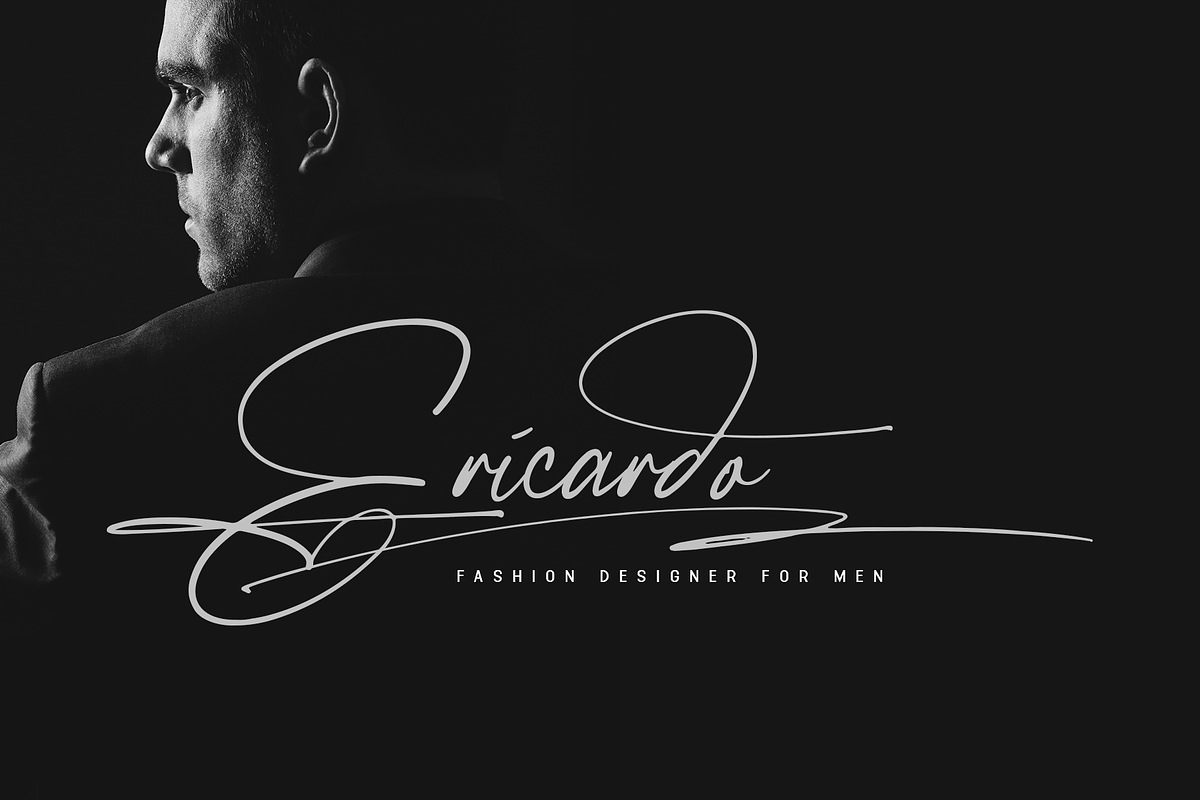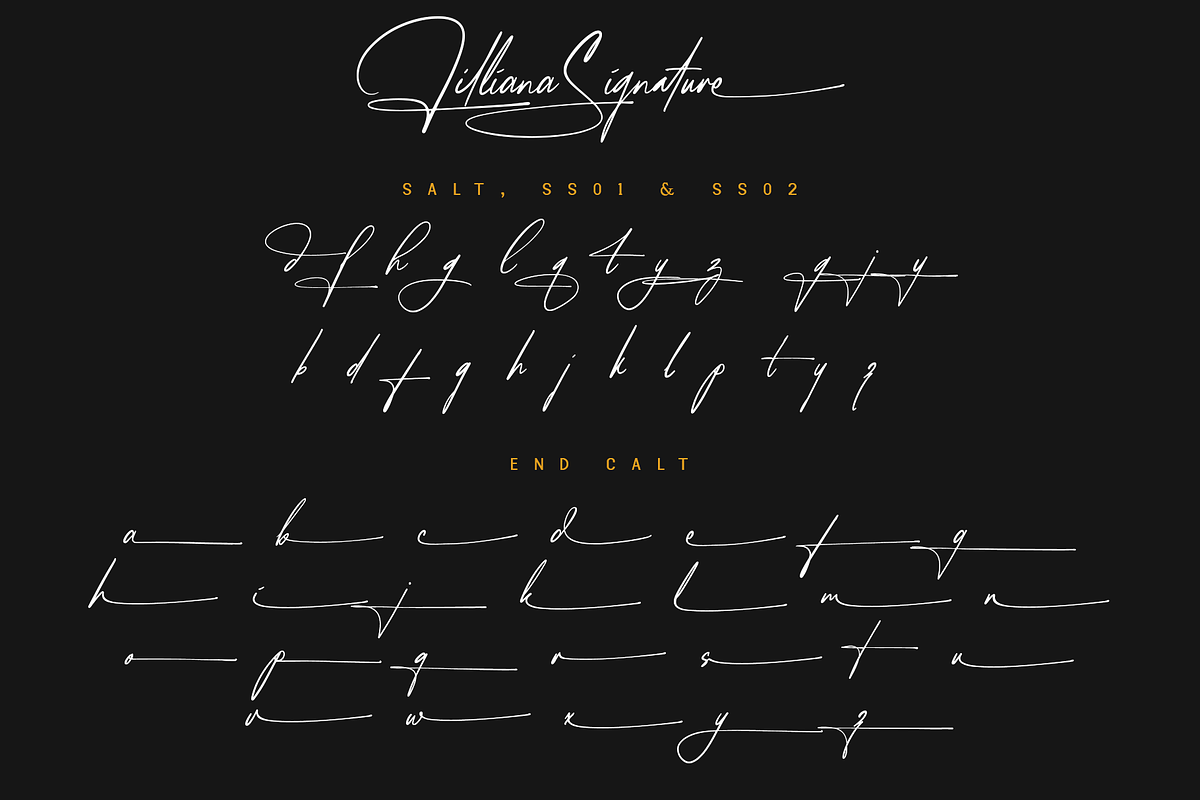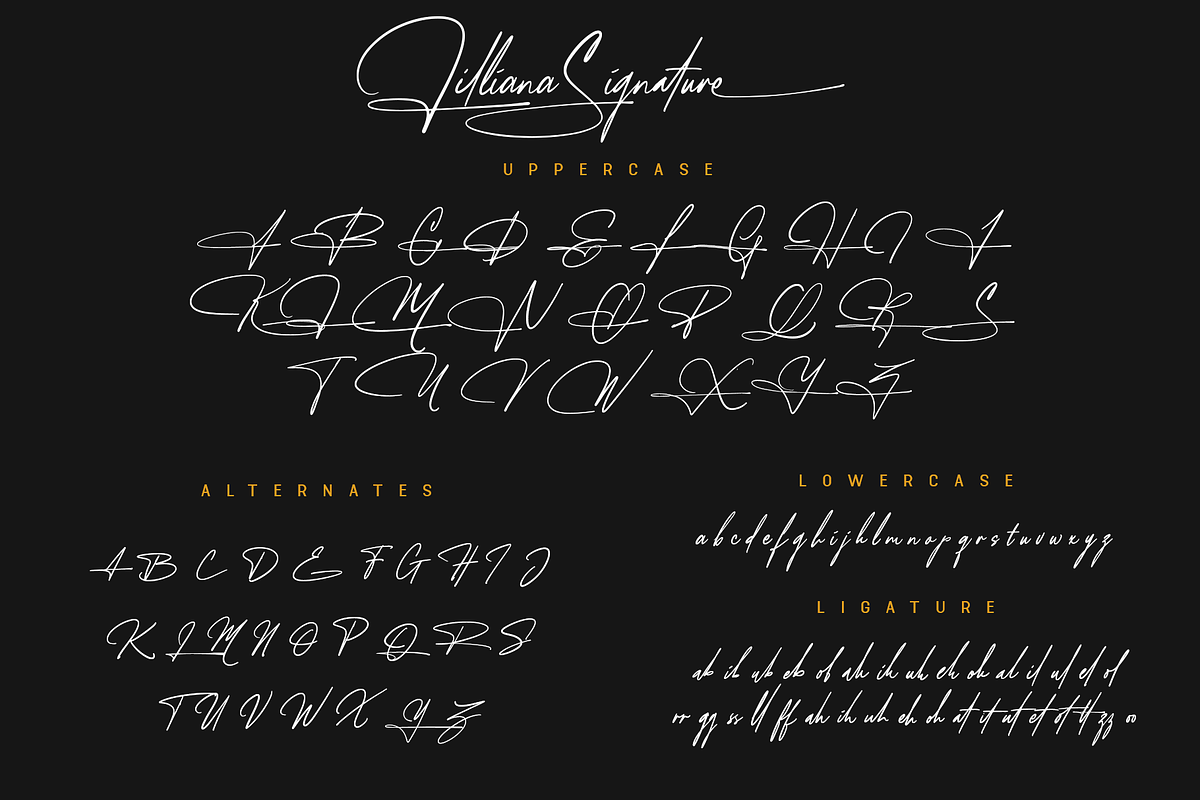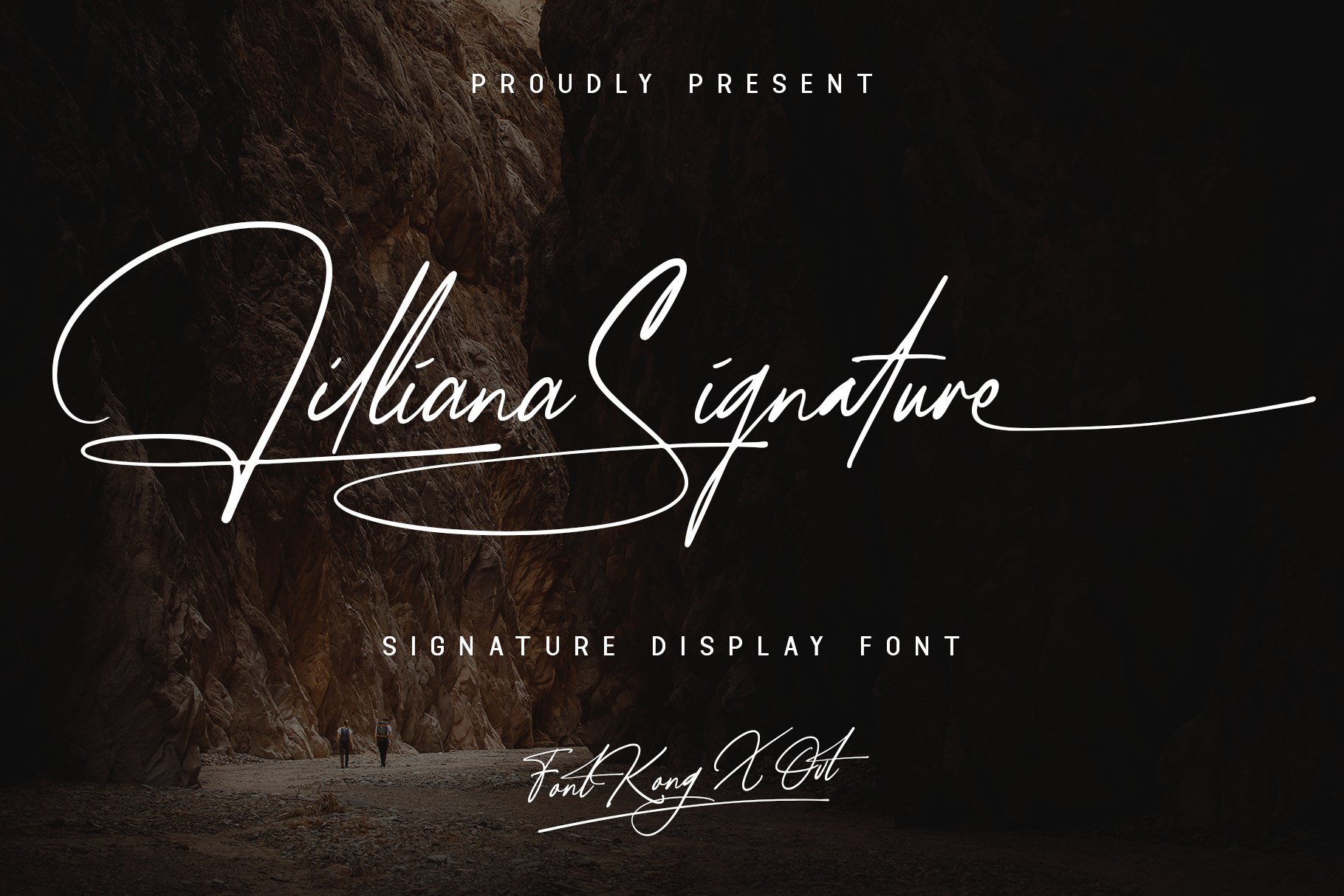
Lilliana Signature - A Display Font
Lilliana Signature - A Signature Display Font
Lilliana Signature is a beautifully crafted signature display font designed to add a touch of elegance and personal flair to your design projects. With its flowing strokes and graceful curves, Lilliana Signature is perfect for upscale branding, sophisticated invitations, elegant stationery, and stylish logos. This font captures the essence of handwritten sophistication, ensuring your work stands out with a refined and distinctive look.
Crafted with attention to detail, Lilliana Signature features smooth and natural letterforms that offer excellent readability and visual appeal. Its signature style makes it ideal for display purposes, providing a personalized and memorable presence. The font’s versatility allows it to adapt seamlessly to various design contexts, from digital platforms to printed materials, making it a valuable asset for any designer aiming to create elegant and impactful visuals.
Elevate your design projects with Lilliana Signature, a font that embodies the beauty of handwritten elegance. Its unique style and adaptability make it an essential addition to any designer’s toolkit for crafting sophisticated and captivating designs. Enhance your work with Lilliana Signature and experience the charm of signature display typography.